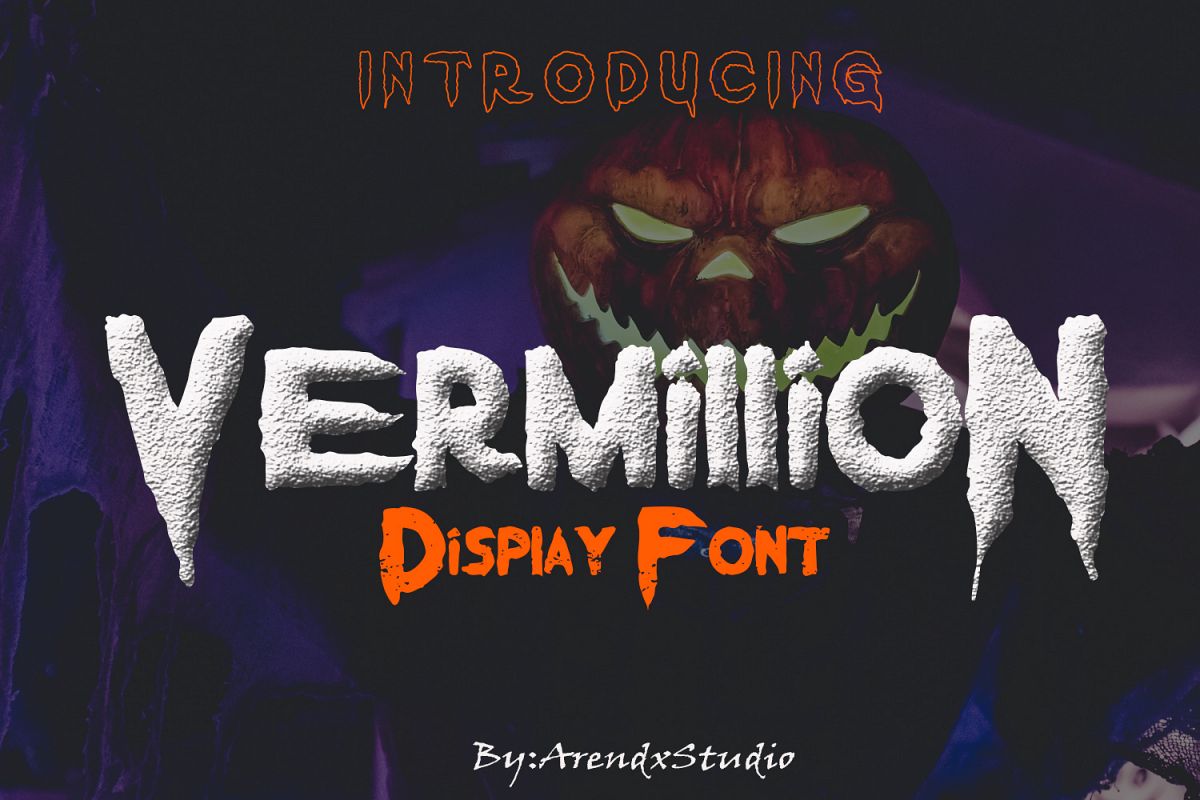
Vermillion Display Font
Vermillion
Vermillion Outline
Inspired by horror films, Vermillion is a bold and spooky display font with sharp edges. It will add a scary twist to any design project.